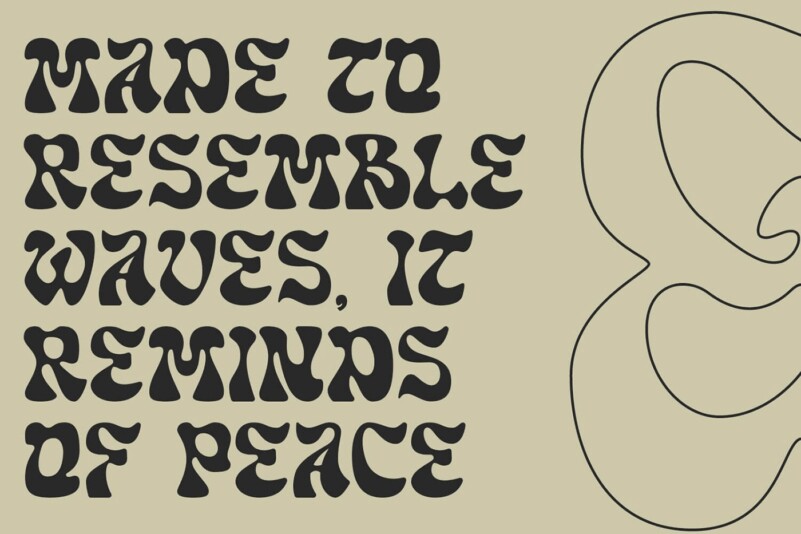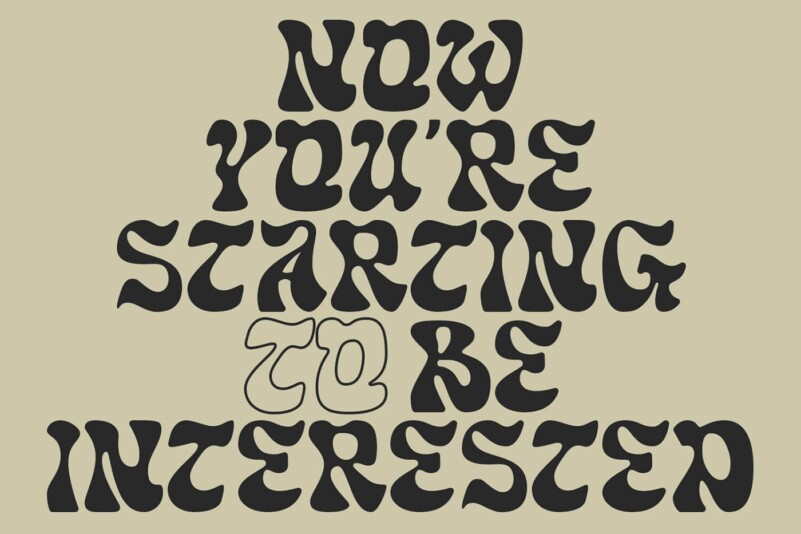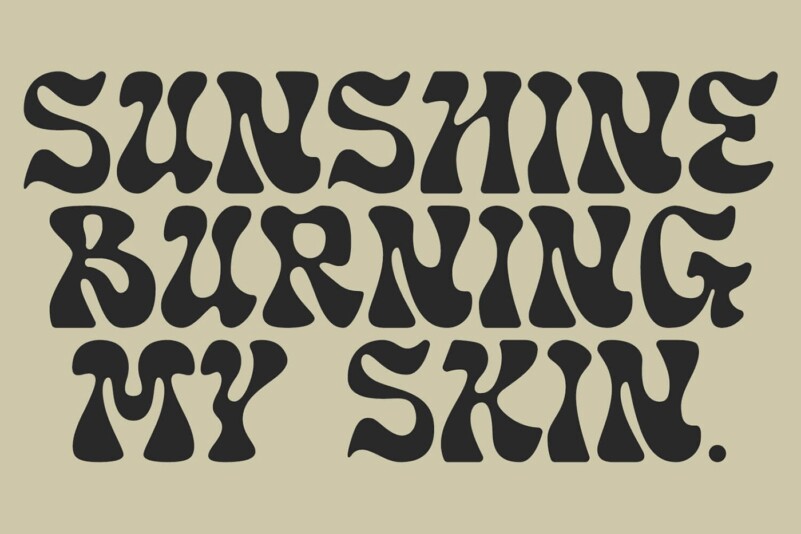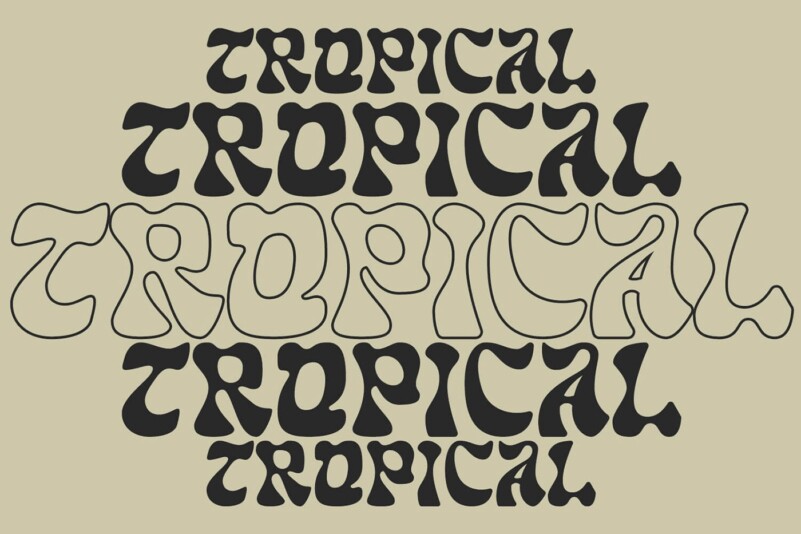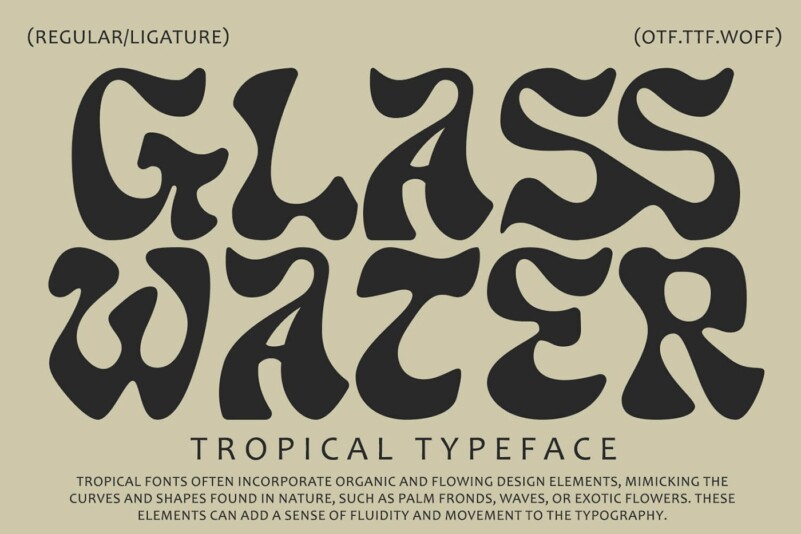
Glass Water Font
Glass Water Font is a font liquid shaped, with a classic modern feel mouthwatering delights. You can use this font in both modern and vintage designs. This font is suitable for attractive packaging label designs, unique desired logos, poster designs, fashion and many more.